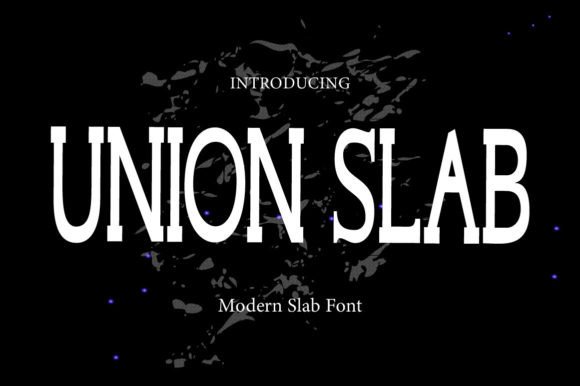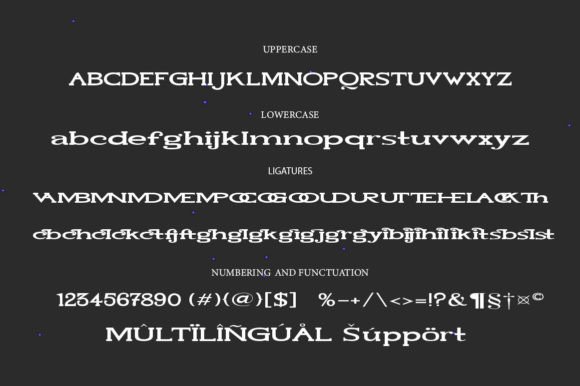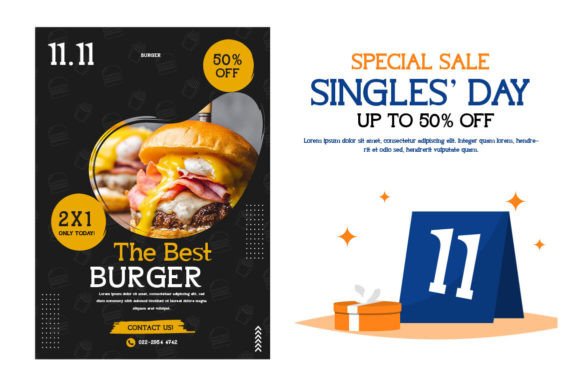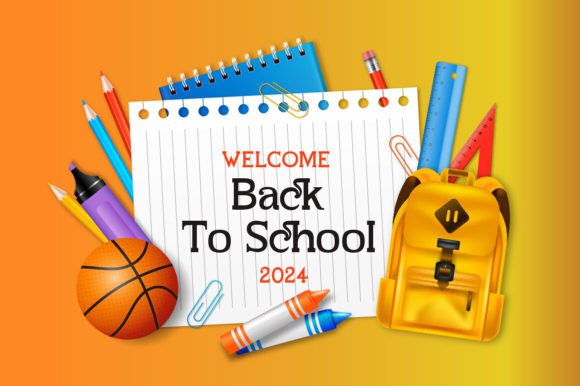
About Union Slab Font
Introducing Union slab font. Is a Slab font with multilingual support. A font that is inspired by decorative letters or cards. This font is ideally suited for fashion heads, stationery, wedding, typography quotes, magazine or book covers, website headers, social media posts, school projects, brochures, clothing, branding, packaging design, and editorial design that displays both masculine and feminine wide variety of projects.